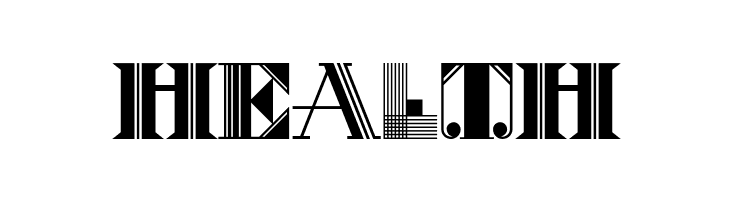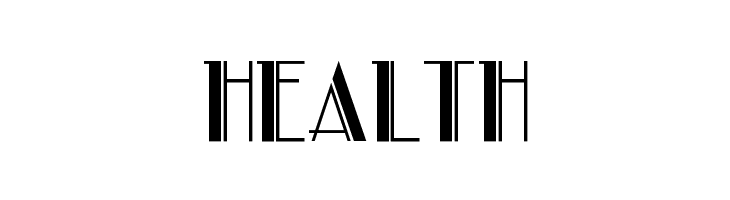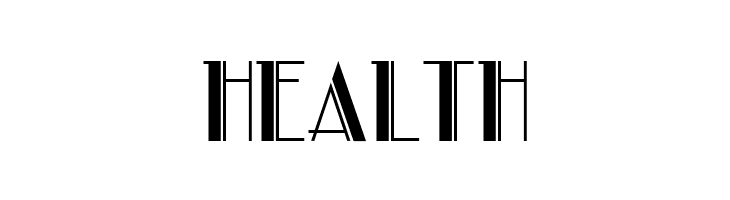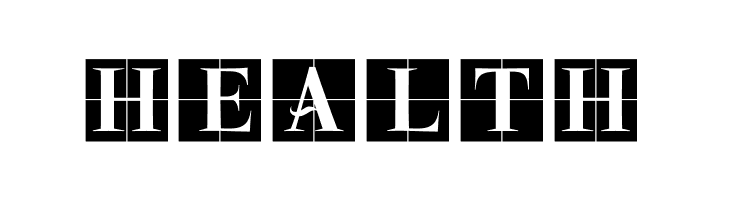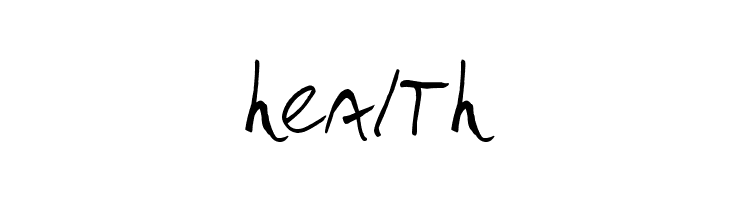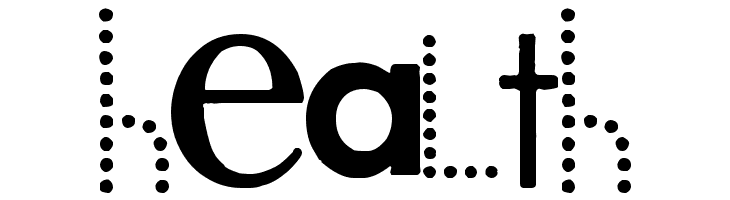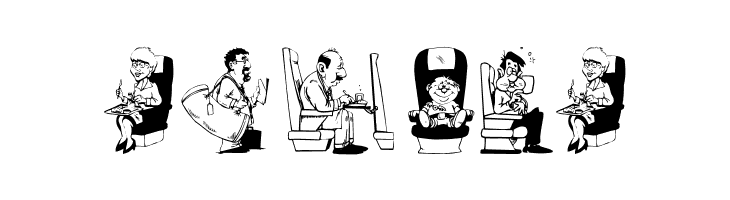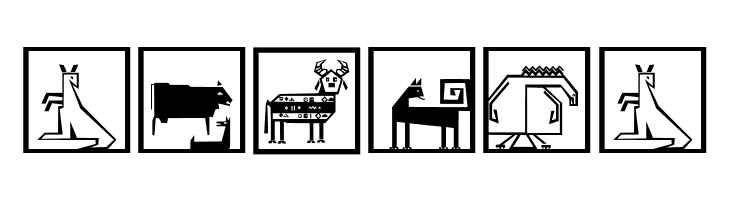
• Park Lane NF
A bold, Art Deco-inspired font with geometric shapes and sharp angles.
• ParkLaneNF
A bold, Art Deco-inspired font with high contrast and geometric elegance.
• ParmaInitialenMK
An ornate and decorative font with high contrast and intricate design.
• PAss the CheX
A playful font combining solid and dotted styles for a dynamic look.
• PassengersFun
Cartoon dingbat font with travel and passenger-themed illustrations.
• Pastiche NF
A vibrant, eclectic display typeface with Art Deco and vintage influences.
• PasticheNF
A vibrant and eclectic display font with unique decorative elements in each character.
• PatternaliaMK
A decorative and whimsical font with characters resembling unique animals.
• Paul PC
( Fonts by Tom Raaijmakers )
A bold, expressive handwritten font with dynamic strokes.
• Payzant Pen NF
A decorative serif font with a blend of geometric and handwritten styles.